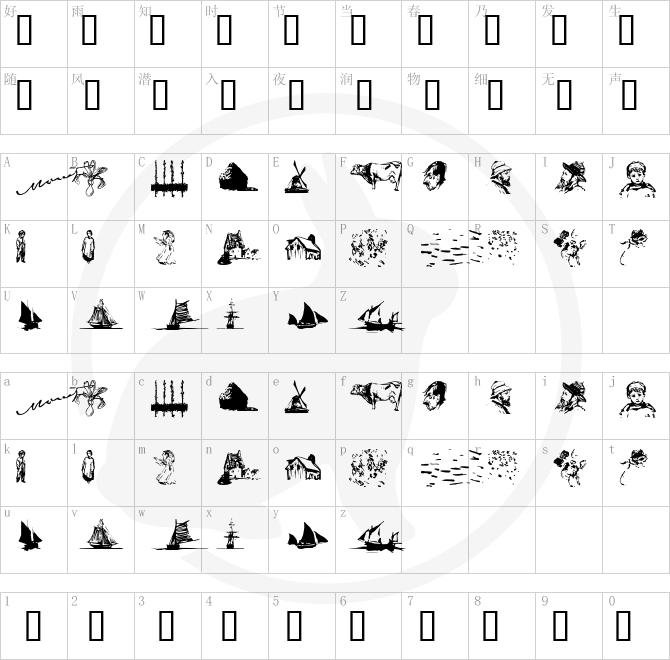
P22Monet-Sketches-1-.ttf is a very beautiful artistic font, P22Monet-Sketches-1-.ttf is widely used in the design and printing of various books and pictures,P22Monet-Sketches-1-.ttf has a strong visual impact,P22Monet-Sketches-1-.ttf is a commonly used font in newspapers, magazines and books, and is used in posters, e-commerce Poster design, store design, logo design, font design and other fields.P22Monet-Sketches-1-.